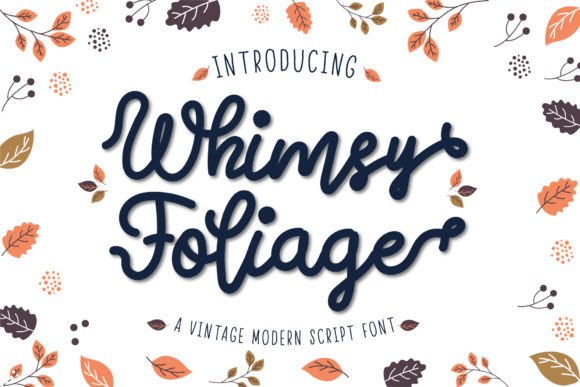
Journey into a realm of vintage charm and natural allure with Whimsy Foliage, a script font that dances with delight and beckons you to embrace the beauty of the past. Crafted with meticulous precision, each letter exudes the grace of hand-drawn strokes, capturing the essence of a bygone era while whispering a tale of modern elegance.
Whimsy Foliage is more than just a font; it's a portal to a world where nostalgia meets innovation. Its vintage flair lends a timeless appeal to invitations, greeting cards, and logos, while its intricate details add a touch of whimsy to branding and marketing materials. Let your designs blossom with the enchanting fusion of whimsy and foliage, captivating your audience with a visual symphony that resonates with both heart and soul.
This font is not merely a tool; it's an invitation to express your creativity like never before. Unleash your imagination and let the whimsical foliage of Whimsy Foliage guide you through a creative journey where boundaries dissolve and dreams take flight. Whether you're a seasoned designer or just starting your creative adventure, this font will ignite your passion and elevate your projects to new heights.
Dare to embrace the allure of vintage charm and the magic of nature's embrace. Download Whimsy Foliage today and let your designs flourish with an enchanting touch of whimsy and foliage. Step into a world where creativity knows no bounds, where every letter tells a story, and where your imagination becomes a living masterpiece.